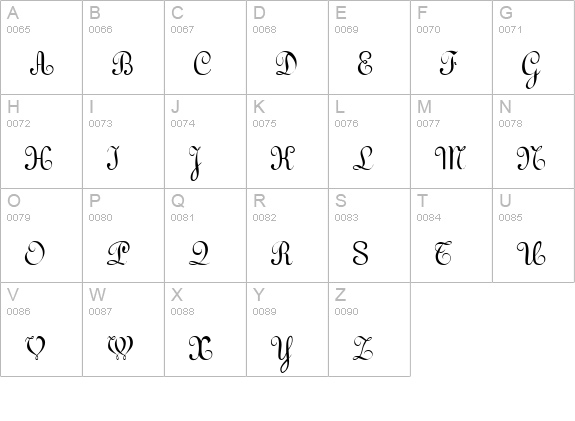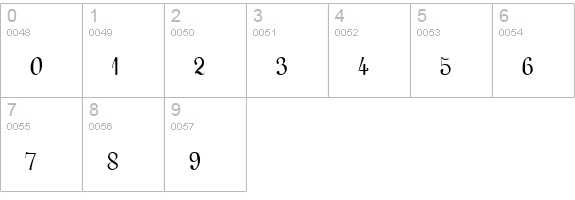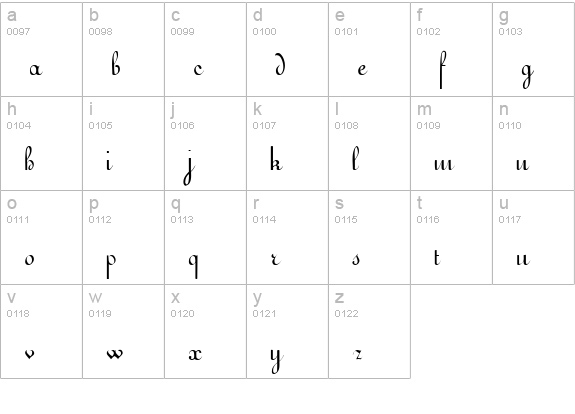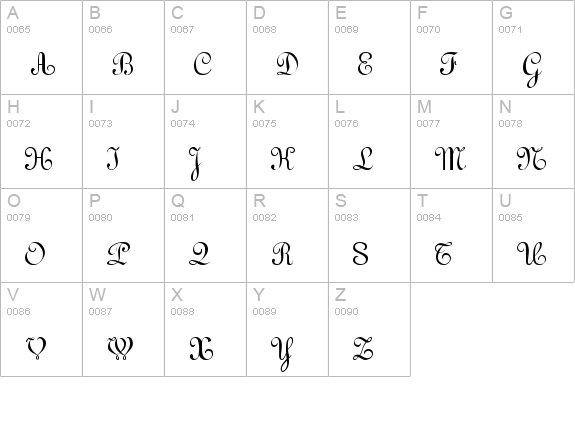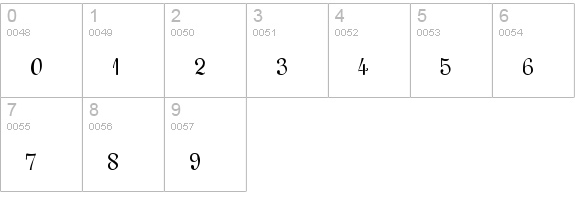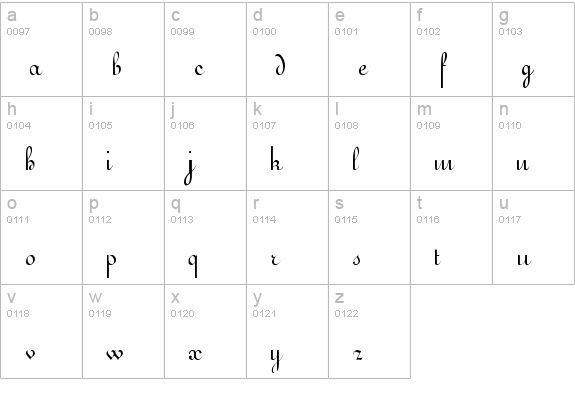
Gessele Regular is the standard, neutral variant in the Gessele typeface family \xE2\x80\x94 well suited to general body text, paragraphs, and standard typographic work.
Gessele Regular is a modern and elegant typeface that exudes sophistication and style. Its clean lines and balanced proportions make it perfect for a wide range of design projects, from branding to editorial design. The versatile nature of Gessele Regular allows it to be used in both digital and print applications, adding a touch of refinement to any layout. This font is freely available to download at FontsMarket.com, allowing designers and creatives to access this beautifully crafted typeface at no cost. With its timeless appeal and versatility, Gessele Regular is sure to become a staple in your font collection, adding a touch of class to your design work.